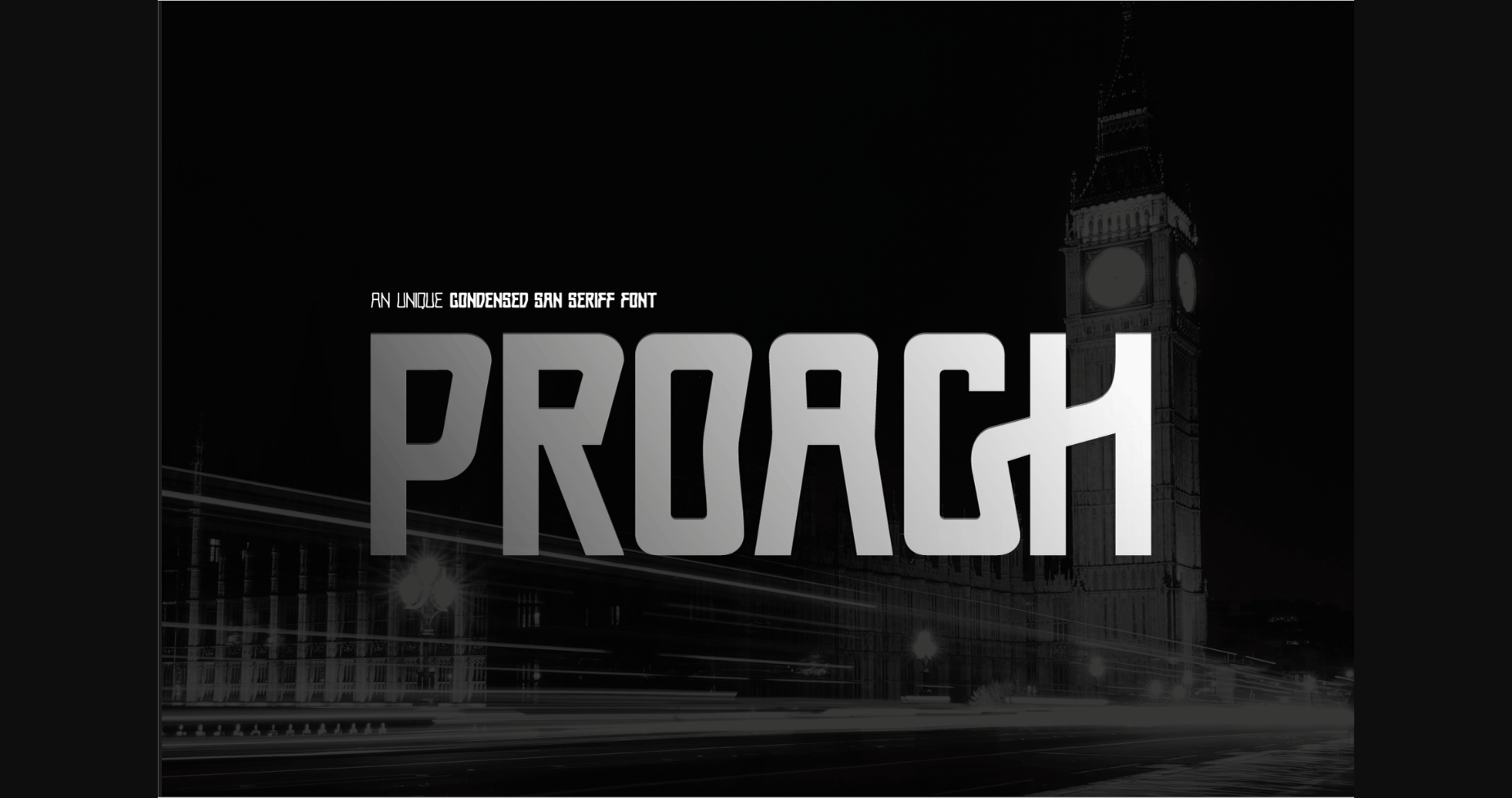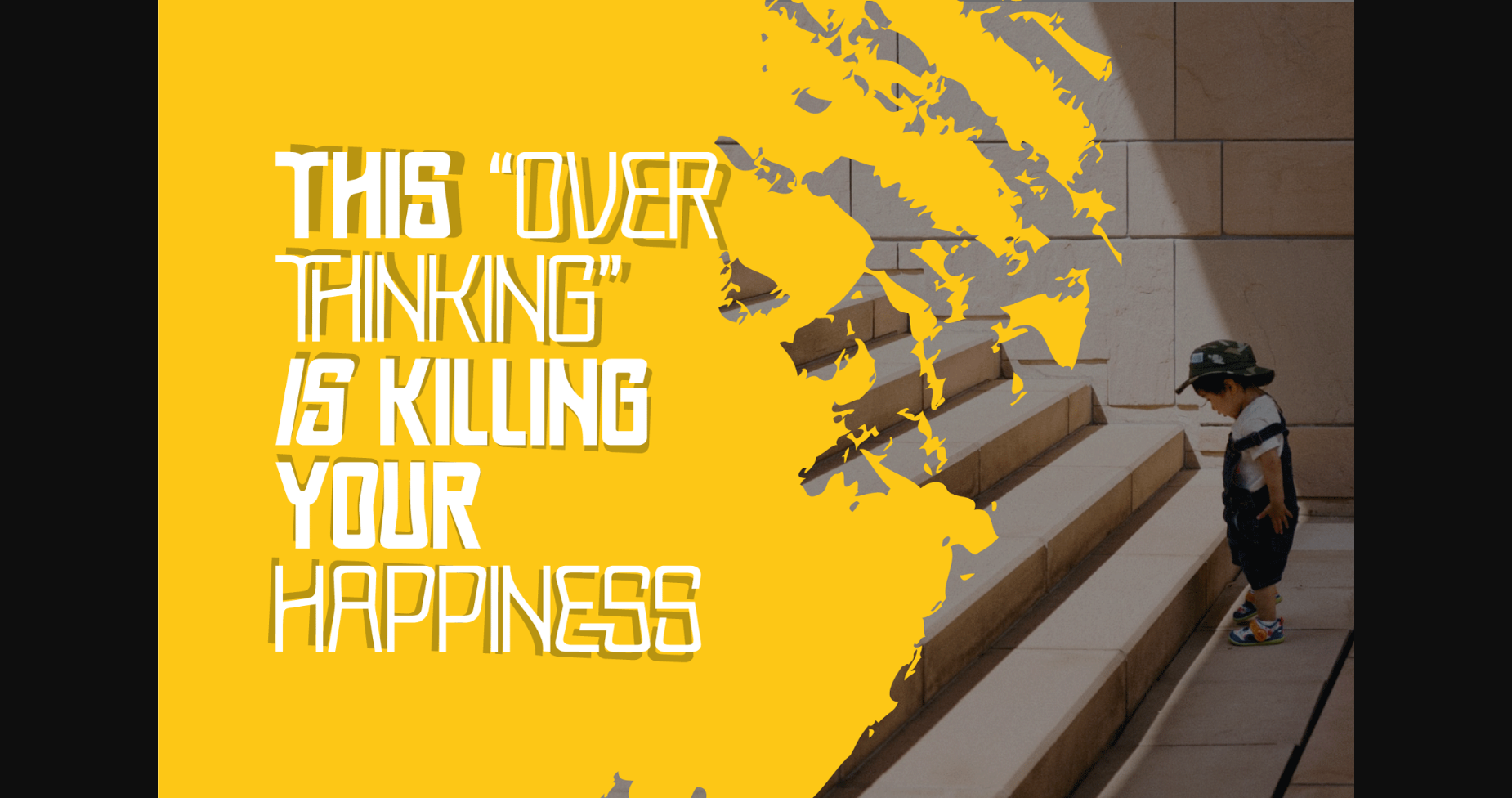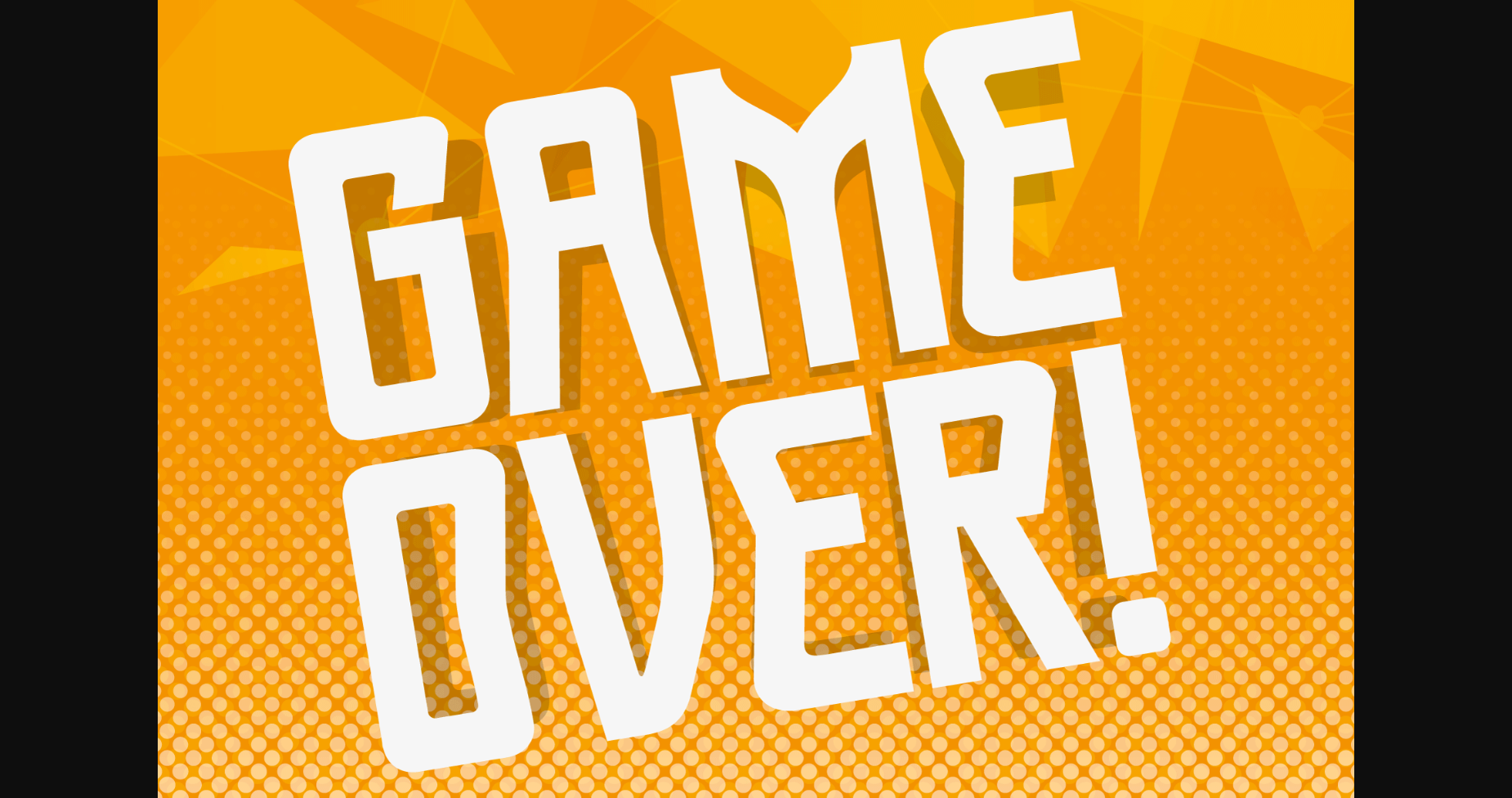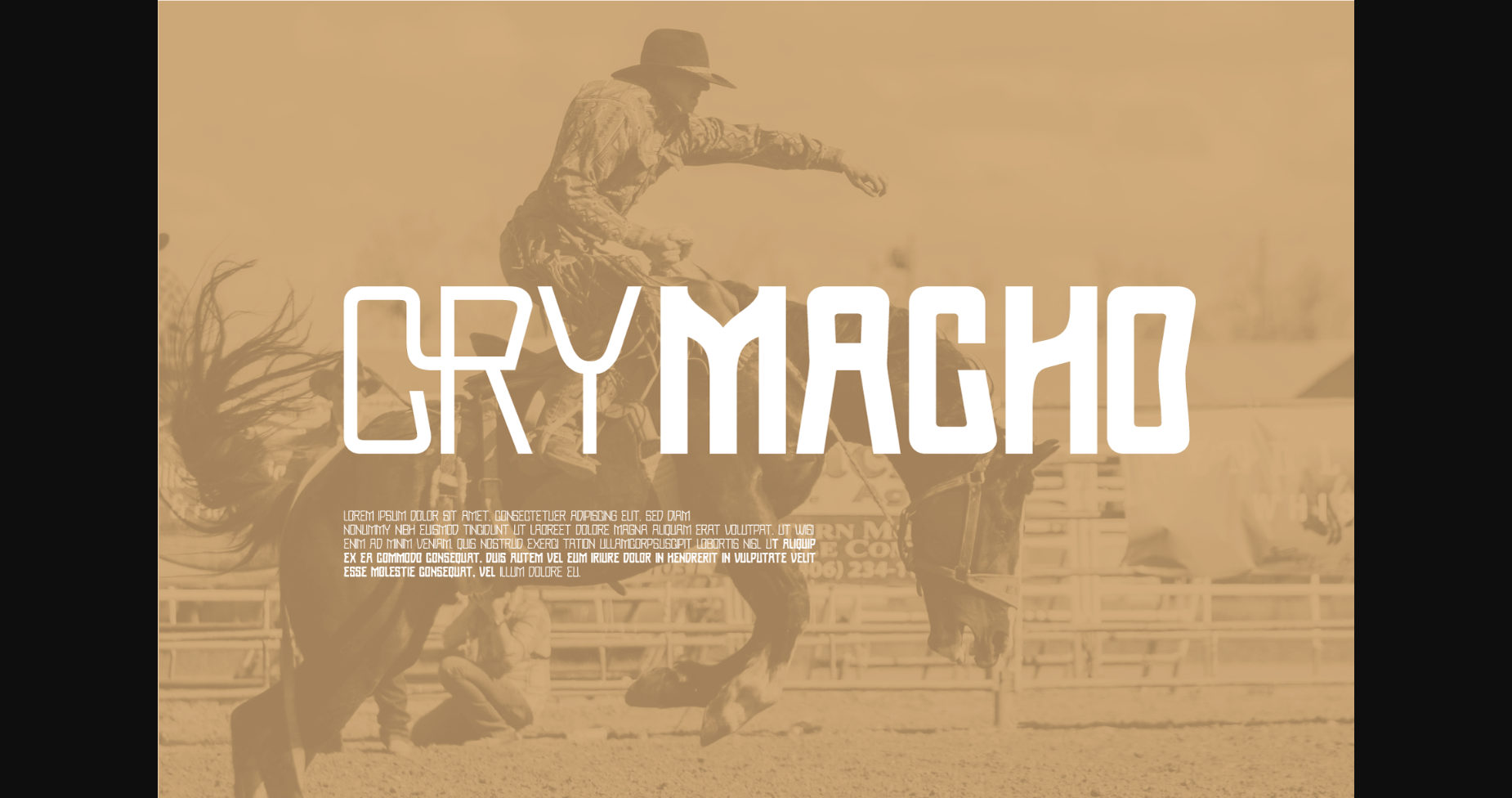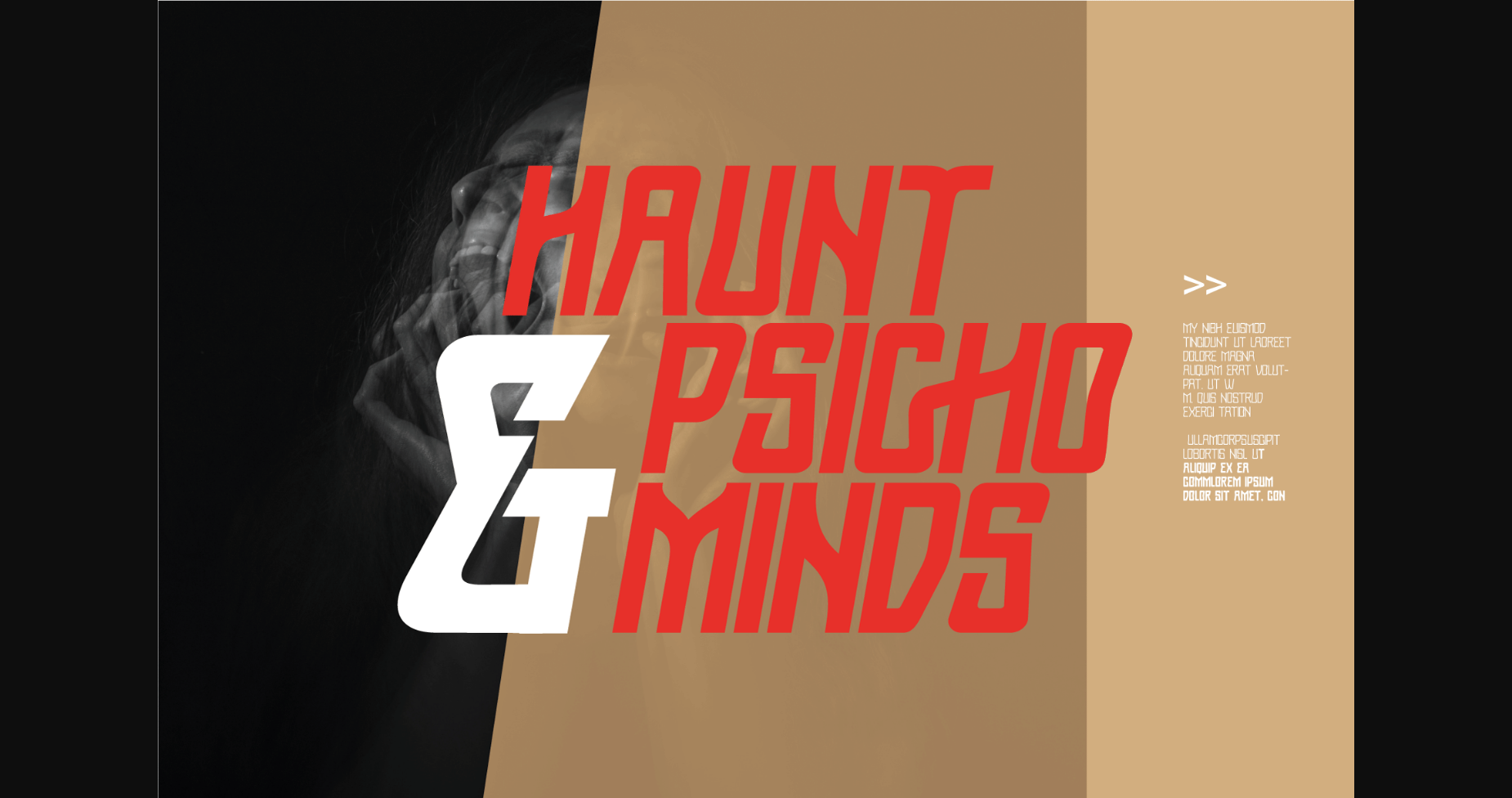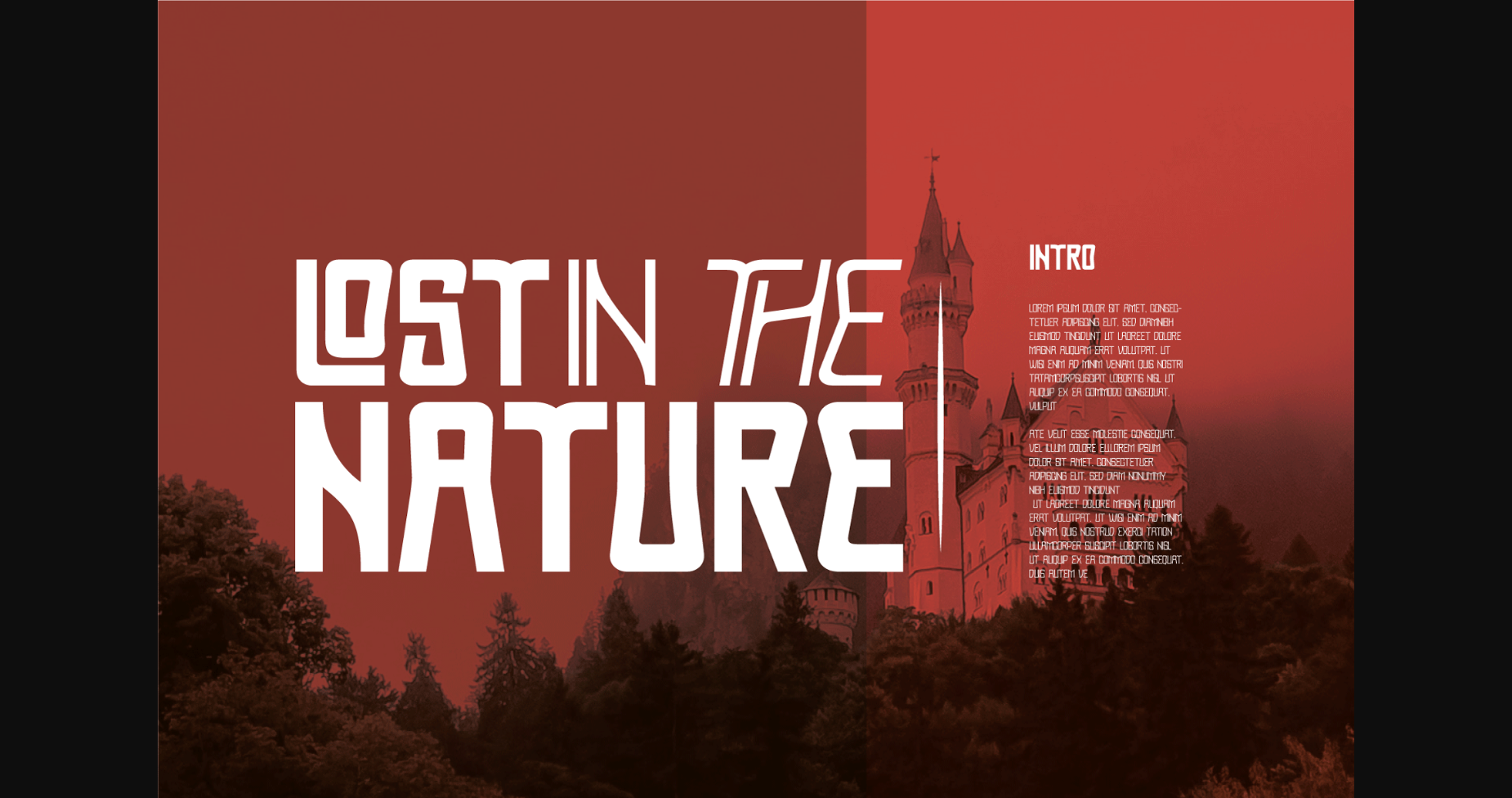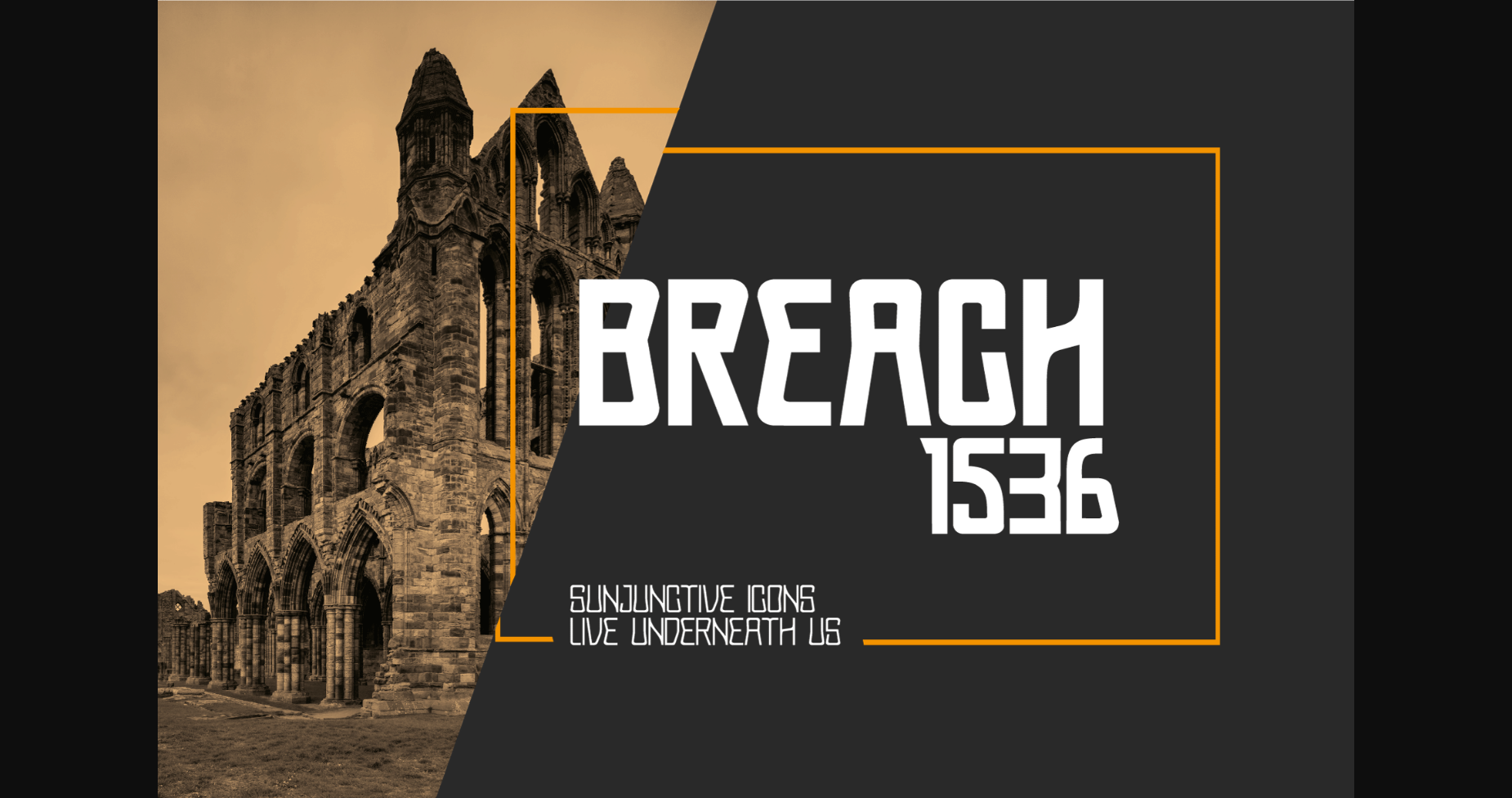
About Proach Font
Poarch is a clean, modern, and condensed font designed as a sans serif font with all caps. It has a round tip angle and a different style from the common sans serif.
Proach is perfect for any project, and it works especially well on brochure/magazine header, logo tagline, flyer title, and paragraph text.